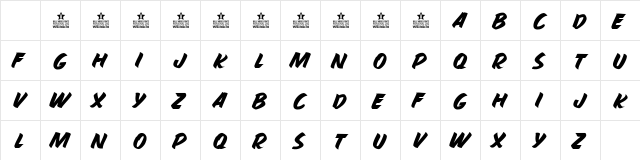
Complete PROPAGANDA SIGHT PERSONAL USE Regular glyph index. Displaying only characters natively supported by PROPAGANDA SIGHT PERSONAL USE Regular font.
PROPAGANDA SIGHT PERSONAL USE is a composed and adaptable typeface that performs quietly and consistently across a wide range of design contexts.